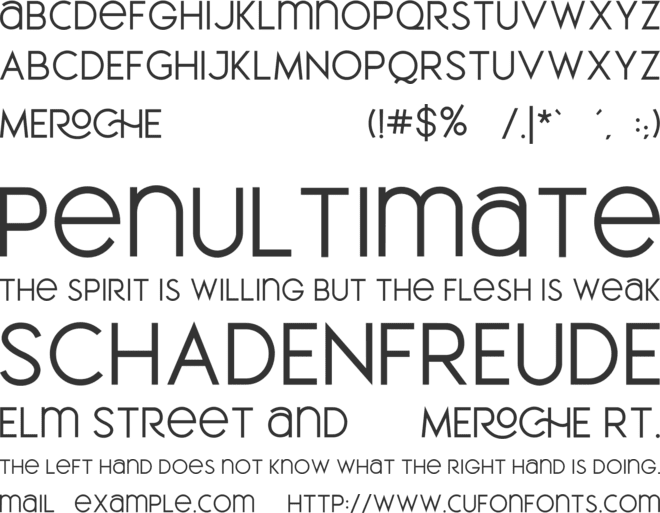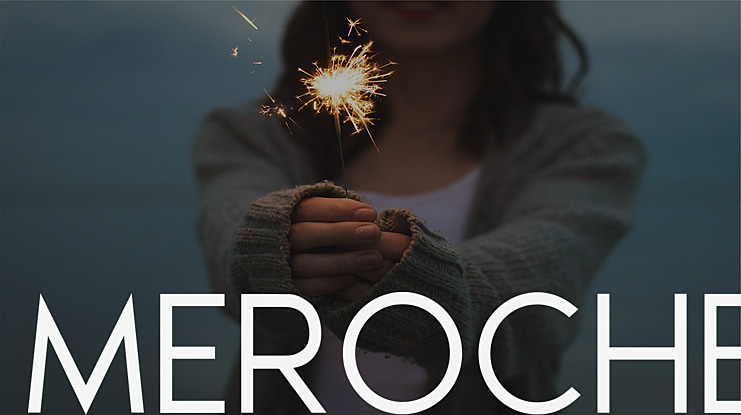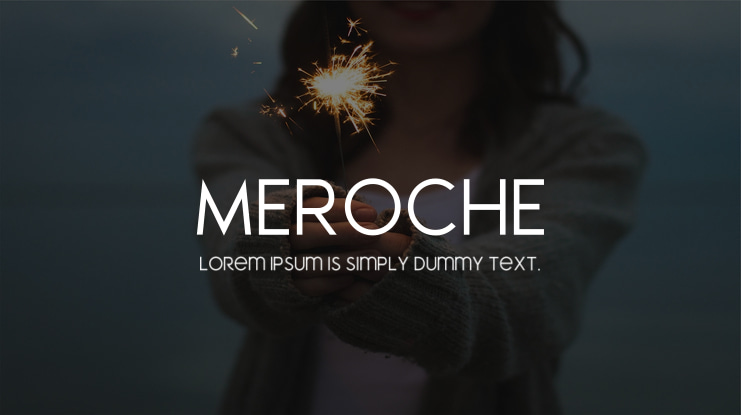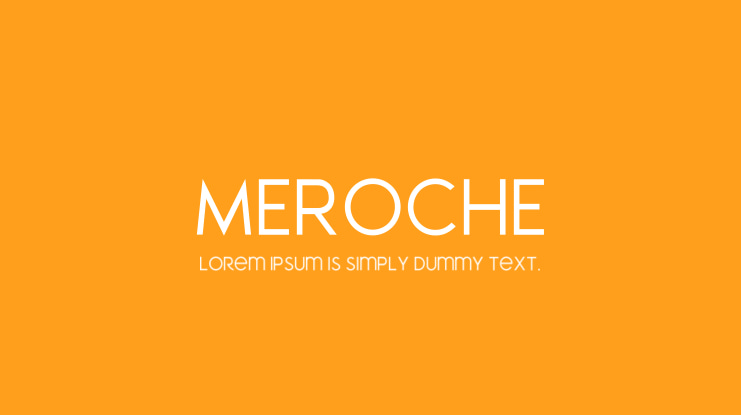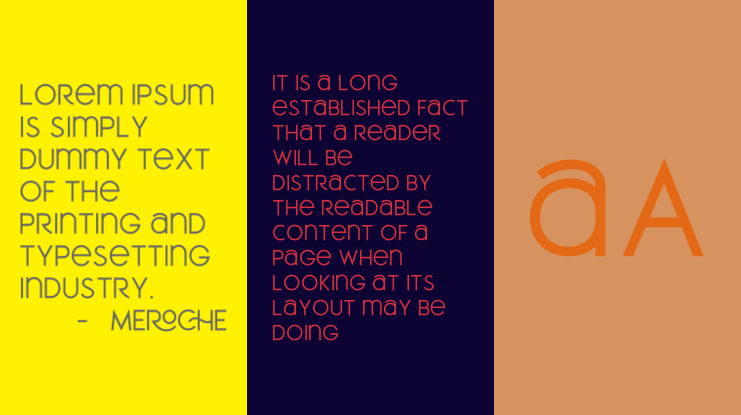
MEROCHE Font
Introducing - Meroche Sweet and Classsy Sans Family
Hi, introduce our new collection of fonts from Meronce Sans Family and with extra fruit with a touch of watercolor,
Meroche Sans Family consists of 4 weight : Thin, regular, medium and bold equipped with 20+ ligatures and alternative letters that look sweet and classy are very good for your work such as logos, branding, packaging, posters, invitations, instastory and your advertising needs